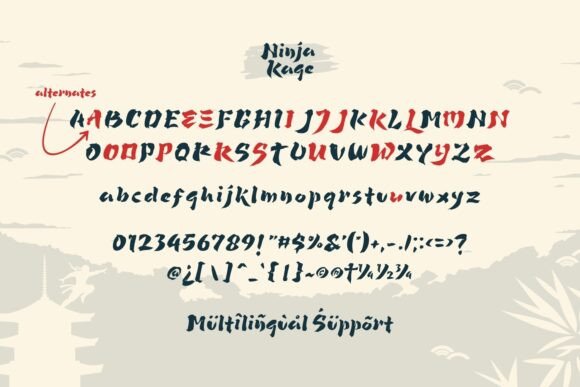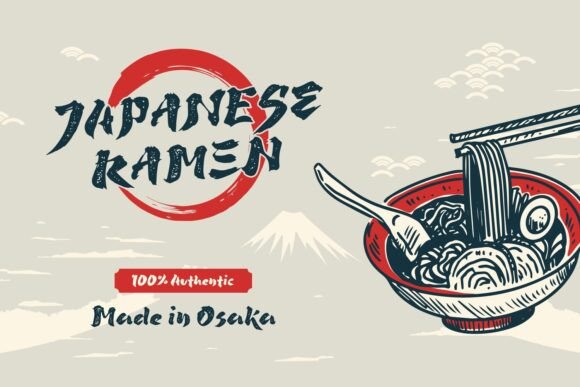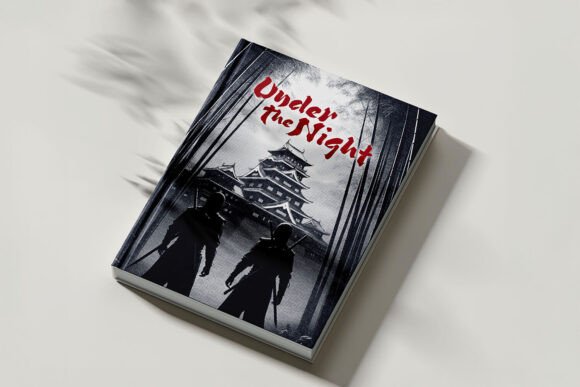
Ninja Kage is a dynamic brush font with a natural feel, inspired by Japanese calligraphy.
With numerous alternates and ligatures, it makes your audience question whether it’s a font or real handwriting Ninja Kage has Regular and Rough styles, making it perfect for logos, movie titles, game titles, posters, book designs, branding materials, and more, this font brings authenticity to any creative project.